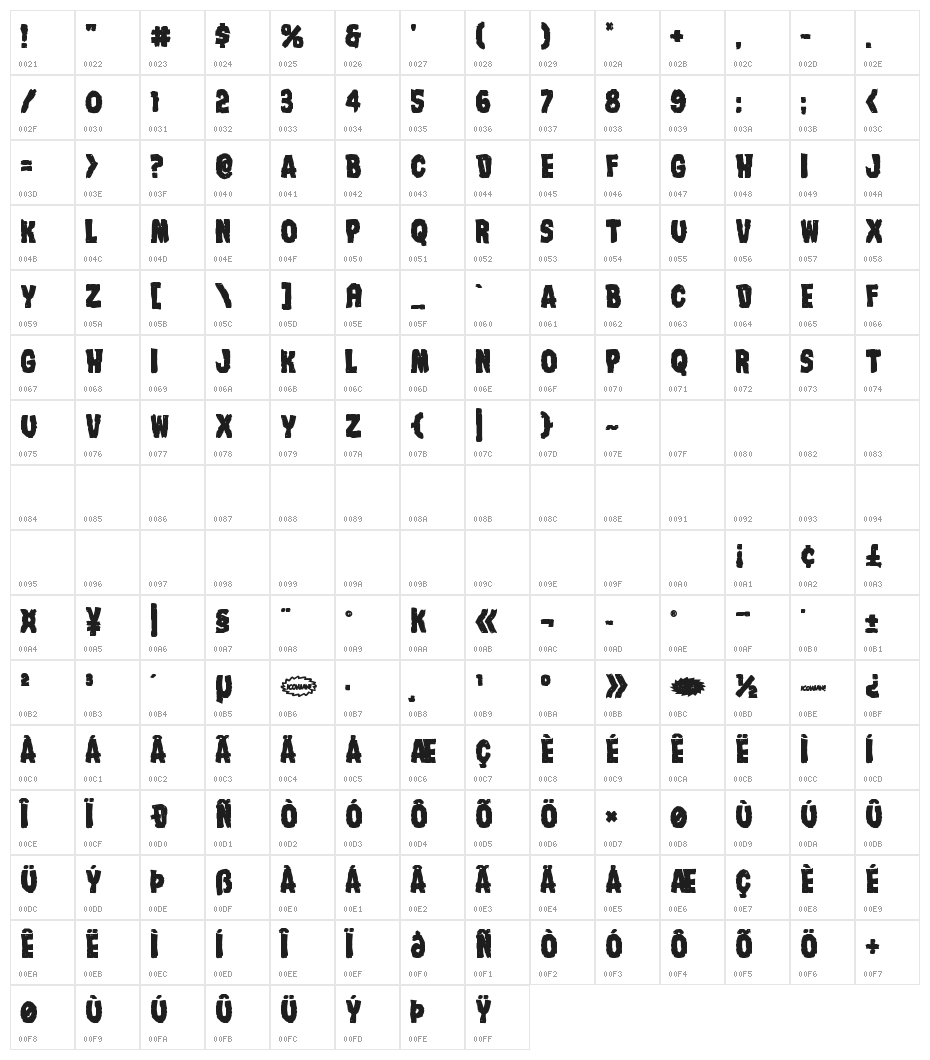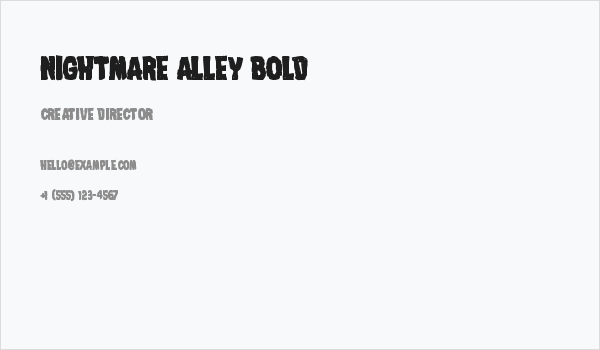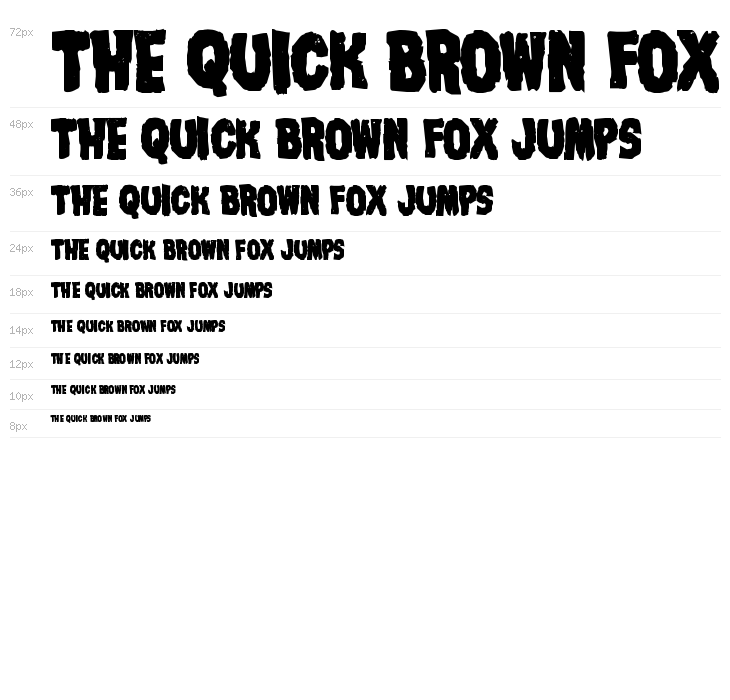
Nightmare Alley Bold Font
Nightmare Alley Bold Description
This font features a bold and rugged design, characterized by its distressed and uneven edges, giving it a gritty, hand-drawn appearance. The letters are thick and heavy, with a rough texture that suggests a vintage or horror-themed aesthetic. The uppercase and lowercase letters maintain a consistent style, with a slightly irregular form that adds to the font's unique charm. The numbers and special characters follow the same design principles, ensuring a cohesive look across all elements. This font is ideal for projects that require a bold and impactful visual statement.